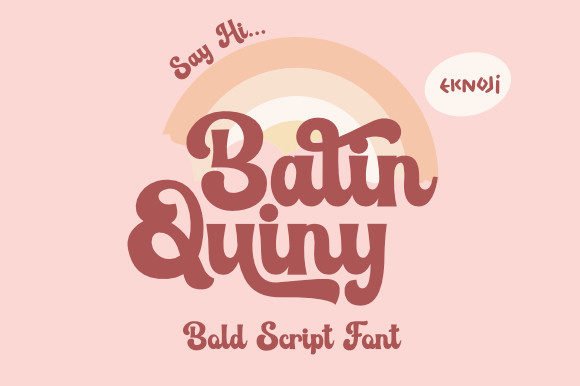
The Perfect Blend of Nostalgia and Style: Unveiling the Balin Quiny Font
There’s nothing quite like the thrill of seeing a design come together. You’ve poured your heart and soul into a project, and the moment you see your vision take shape, it’s pure magic. But sometimes, all it takes is the right font to elevate your design from good to great. That’s exactly where the Balin Quiny Font comes in – a gorgeous and bold handwritten font that’s guaranteed to add a touch of retro charm to your headlines and logotype projects.
With its strong, confident, and dynamic feel, the Balin Quiny Font is a valuable addition to any designer’s toolkit. Whether you’re working on a branding project or creating a social media campaign, this font is sure to make your designs stand out. Plus, its PUA encoding means you can access all of the amazing glyphs and ligatures with ease, giving you endless possibilities to experiment and create.
Balin Quiny Font Key Features
- Font Family: Balin Quiny Font is a unique, hand-drawn script font with a elegant and sophisticated design.
- Character Set: The font includes a wide range of characters, including uppercase and lowercase letters, numbers, and punctuation marks, making it suitable for various applications.
- Unique Characteristics: The font features a distinctive, handwritten style with subtle flourishes and swashes, adding a touch of elegance and sophistication to any design.
Balin Quiny Font Review
Overall, I found the Balin Quiny font to be quite unique and attention-grabbing. ✨ Its modern aesthetic and playful curves make it perfect for titles, headings, or any element that needs a bit of flair. The font also feels quite versatile, allowing it to seamlessly integrate into various designs.
- Customization options are extensive, allowing designers to fine-tune the font to their liking. ✨
- The font’s bold weights are particularly effective in drawing attention to important information. ✨
- The font’s OpenType features enable a range of stylistic variations, adding an extra layer of creativity. ✨
However, there are a few limitations to consider. ⚠️ The font’s regular weight can sometimes feel a bit too light, making it difficult to read in smaller sizes. Additionally, the font’s playfulness may not be suitable for all designs, potentially making it feel overly flashy or immature.
Overall, I think the Balin Quiny font is a solid choice for designers looking to add some personality to their work. While it may not be perfect for every project, its strengths far outweigh its limitations, making it a great addition to any design arsenal.
Tips for Getting the Most Out of Balin Quiny Font
Experiment with different font sizes and styles to create visual interest. Pair Balin Quiny with other fonts to create a unique and engaging design. Use the font for headings and titles to create a strong visual hierarchy.
Balin Quiny Font is ideal for use in creative and artistic projects, such as typography-based art, graphic novels, and children’s book illustrations. It’s also suitable for use in digital products, such as mobile apps and websites, where a unique and engaging font is desired.